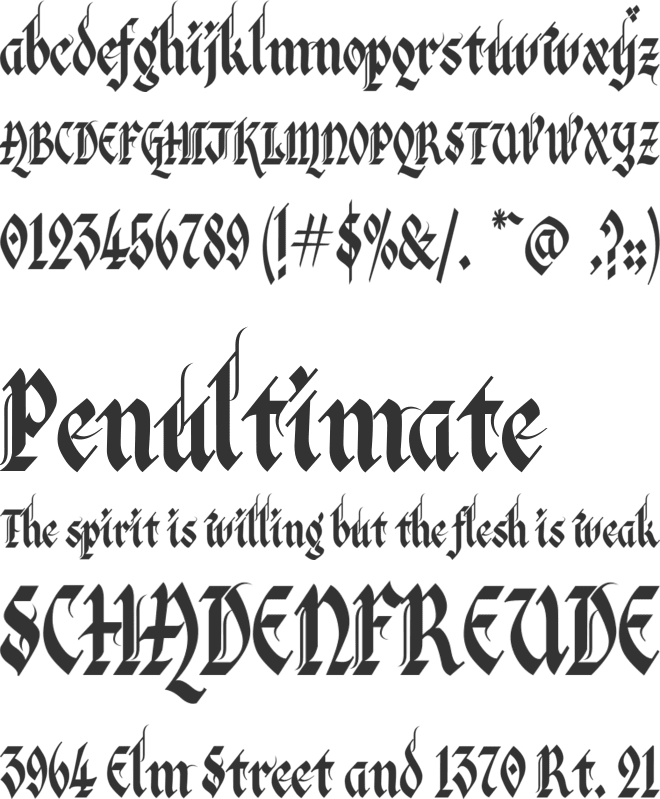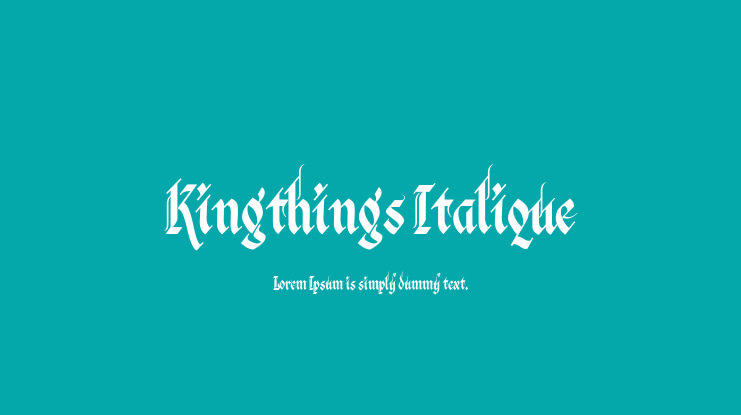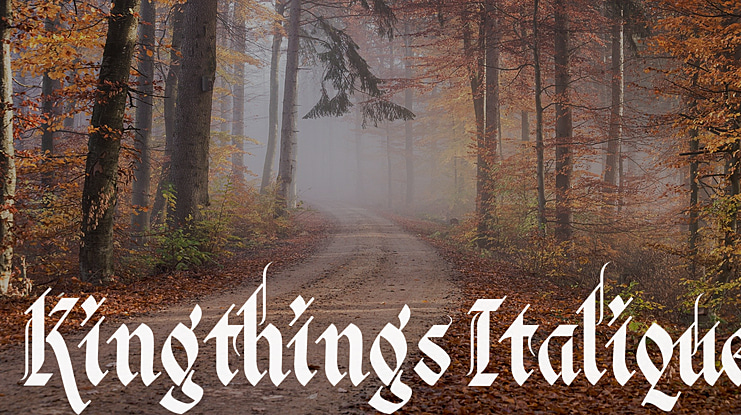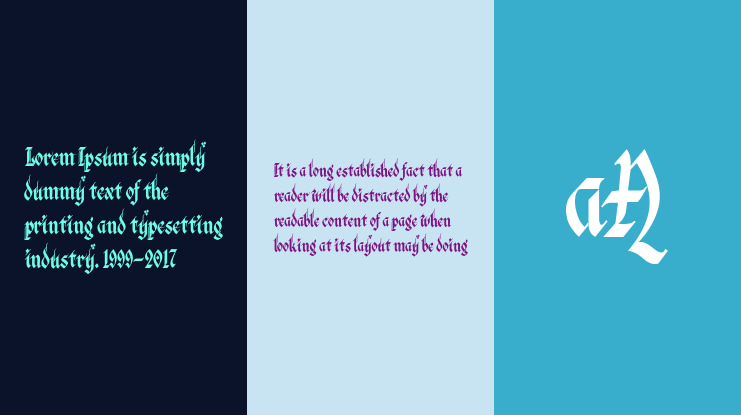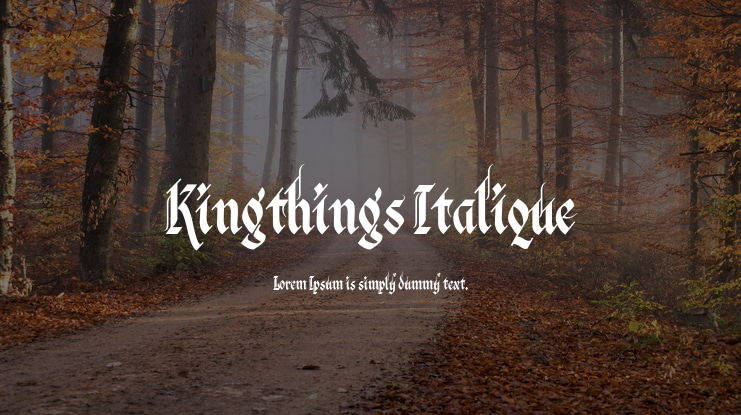
Kingthings Italique Font
Is based again on letterforms that I learned at school - and because? I like spiky (/kingthings-spike-font.html)! This font can be used with the flourishes set (/kingthings-flourishes-font.html).